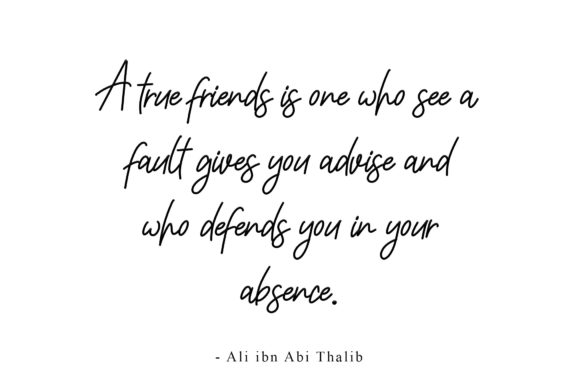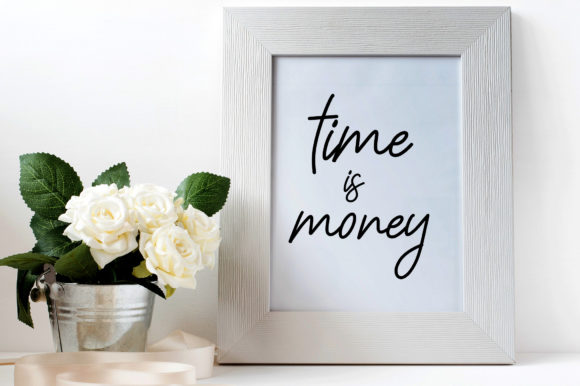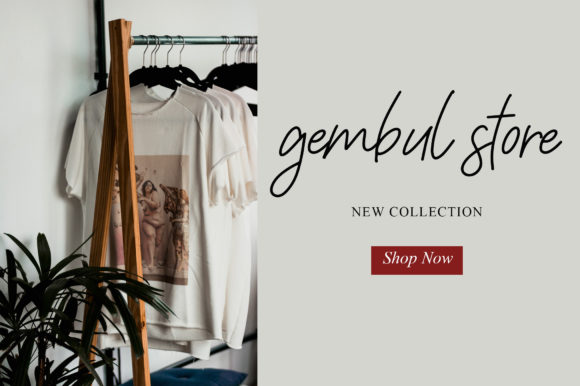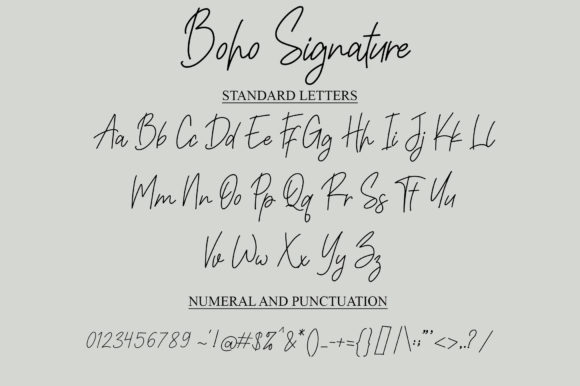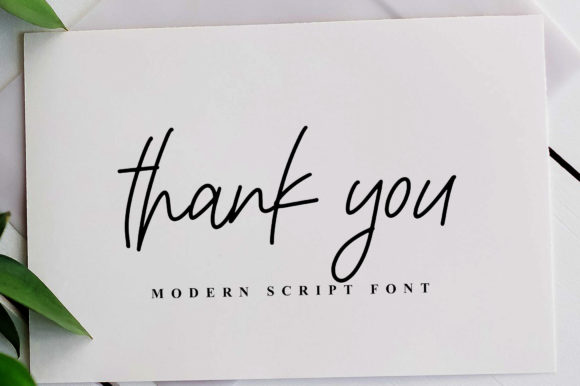
When Handwritten Style Meets Design
As designers, we’ve all been there – staring at a blank canvas, trying to convey the perfect message, and needing that special something to make it truly unique. That’s when the magic happens, and we stumble upon the perfect font to bring our vision to life.
Meet the Boho Signature Font, a charming and elegant script that adds a handwritten touch to any design. Whether it’s a wedding invitation, a thank you card, or a logo, this font is sure to leave a lasting impression. Its versatility makes it a valuable asset for designers looking to add a personal touch to their projects.
With the Boho Signature Font, you can create designs that exude warmth and sophistication. Its beauty lies in its ability to evoke a sense of emotion, making it a must-have for any designer looking to take their work to the next level.
Boho Signature Font Key Features
- Unique Characteristics: The Boho Signature Font features a mix of elegant and bohemian elements, making it perfect for those who want to add a touch of sophistication and free-spiritedness to their designs.
- Unique Glyphs: The font includes a variety of unique glyphs, such as swashes, flourishes, and ornaments, which can be used to add an extra touch of elegance to designs.
Boho Signature Font Review
I’ve had the chance to work with the Boho Signature Font and here’s my honest take.
The Boho Signature Font has a unique and stylish aesthetic that immediately catches the eye. I love how it captures the essence of bohemian flair with its elegant and intricate design elements. The font is perfect for adding a touch of sophistication to any design project, from wedding invitations to fashion branding.
- Unique and stylish aesthetic
- Elegant and intricate design elements
- Perfect for adding a touch of sophistication
While the Boho Signature Font is a beautiful addition to any design project, there are a few limitations to consider. The font can be a bit too ornate for some projects, which may make it difficult to read. Additionally, the font is not as versatile as some other fonts on the market, which may limit its use in different design contexts.
- Can be too ornate for some projects
- Not as versatile as some other fonts
Overall, I’m impressed with the Boho Signature Font, but I would recommend using it sparingly to avoid overwhelming the design. With a bit of restraint, this font can add a touch of elegance and sophistication to any project.
Tips for Getting the Most Out of Boho Signature Font
For the best results, use the Boho Signature Font in conjunction with a bold or cursive font to create a striking contrast.
Experiment with different font sizes and colors to add depth and visual interest to your design.
Use the Boho Signature Font to add a personal touch to your branding and marketing materials.
Common Use Cases for Boho Signature Font
The Boho Signature Font is perfect for:
Personal branding and marketing materials
Blog posts and social media graphics
Q: What is the character set for the Boho Signature Font?
The Boho Signature Font includes a wide range of characters, including Latin, Cyrillic, and Greek alphabets, as well as punctuation and special characters. The font also includes a comprehensive set of ligatures, swashes, and alternates to add unique flair to your designs.